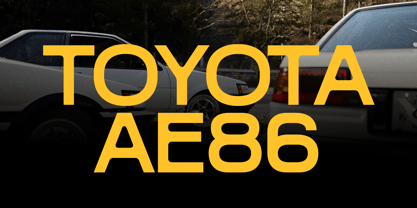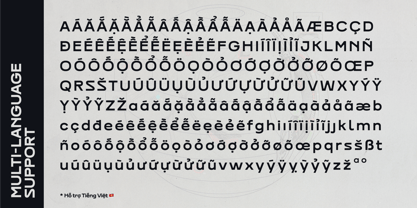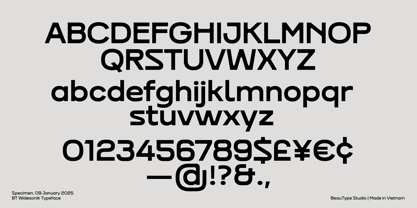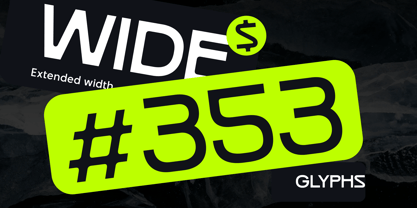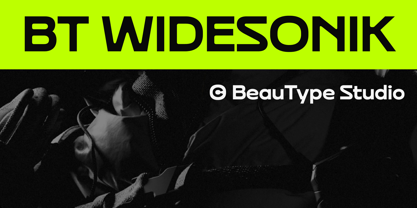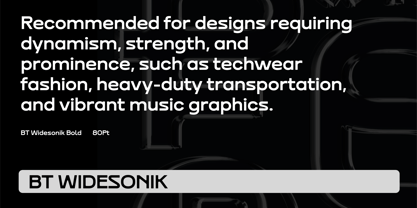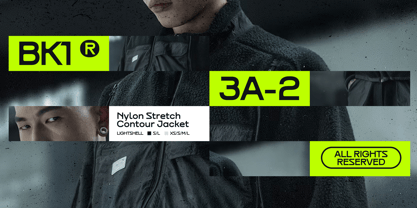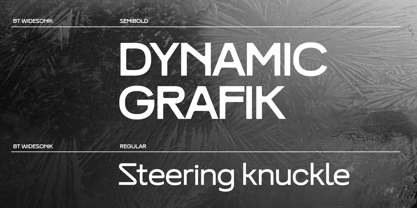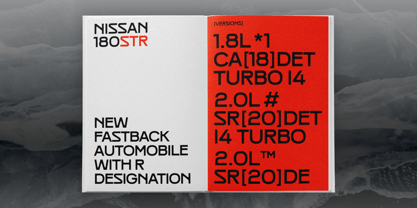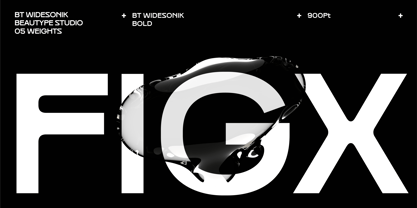
BT Widesonik
by BeauType
BT Widesonik is a wide, versatile typeface that can be used in a variety of design styles. This set of fonts is recommended for designs that require dynamism, strength, and prominence, such as tech-wear fashion, heavy-duty transportation, and vibrant music graphic design. Other areas that could be experimented with include contemporary art advertising, biotechnology, etc. BT Widesonik is a highly individual and versatile typeface suitable for a wide range of design purposes..